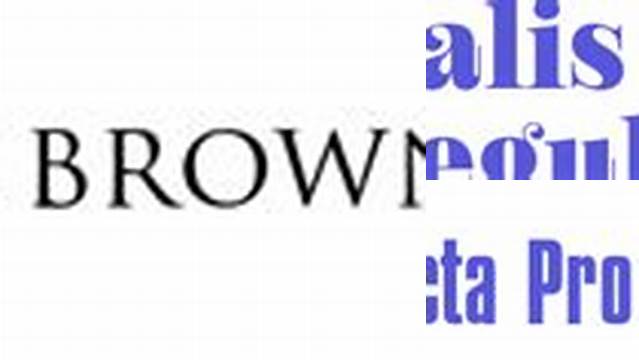
Hey guys! Ever stumbled upon a font so classic and elegant, it just screams Roman Empire? That's Trajan Pro Regular for ya! If you're on the hunt for this stunning typeface, you've landed in the right spot. We're diving deep into everything Trajan Pro Regular, from its history and uses to where you can snag it for your next project. Let’s get started!
1. What is Trajan Pro Regular?
Trajan Pro Regular is more than just a font; it's a piece of typographic history. Inspired by the letterforms on the Trajan Column in Rome, this font exudes a timeless elegance. Designed by Carol Twombly in 1989 for Adobe, it’s a classic serif typeface known for its clean lines and balanced proportions. Think of it as the go-to font when you want to convey sophistication and authority. Whether you're crafting a movie poster, designing a book cover, or working on a branding project, Trajan Pro Regular adds a touch of class that few other fonts can match. It's the font that whispers, "This is important," without ever raising its voice. The beauty of Trajan Pro Regular lies in its simplicity and its ability to make a statement without being overly flashy. It's a font that understands the power of subtlety and the impact of a well-crafted letterform.
2. History and Origins of Trajan Pro
The story of Trajan Pro is rooted in ancient history. The font’s design is directly inspired by the inscriptions on the base of Trajan's Column in Rome, which was erected in 113 AD. These inscriptions are widely regarded as some of the finest examples of Roman square capitals, and they have influenced type designers for centuries. Carol Twombly, the brilliant mind behind Trajan Pro, meticulously studied these ancient letterforms to create a typeface that captures their timeless beauty and elegance. In 1989, she released Trajan Pro under the Adobe Originals program, and it quickly became a favorite among designers. The font's classical roots give it a sense of authority and sophistication, making it a popular choice for projects that require a touch of history and grandeur. From movie posters to corporate branding, Trajan Pro has left its mark on the world of design, proving that some things, like well-designed letterforms, truly are timeless. Its enduring appeal is a testament to the power of classic design and the lasting influence of ancient Roman artistry.
3. Key Characteristics of Trajan Pro Regular Font
So, what makes Trajan Pro Regular so special? First off, its elegant serif design gives it a classic and authoritative feel. The letterforms are clean, crisp, and perfectly proportioned, making it incredibly readable and visually appealing. One of the standout features of Trajan Pro Regular is its all-caps design. That’s right, it’s exclusively an uppercase font, which adds to its sense of grandeur and formality. This characteristic makes it particularly well-suited for headlines, titles, and short blocks of text where you want to make a strong statement. The uniform stroke weight and the subtle serifs contribute to its polished and refined appearance. It’s a font that commands attention without being overly assertive, making it a versatile choice for a wide range of design applications. Whether you’re aiming for a timeless, sophisticated look or need a typeface that exudes confidence and authority, Trajan Pro Regular delivers every time.
4. Common Uses of Trajan Pro Regular
You'll often spot Trajan Pro Regular in places where a touch of elegance and authority is needed. Think movie posters, particularly for historical dramas and epic films. Its classical appearance instantly conveys a sense of grandeur and timelessness, making it a perfect fit for Hollywood blockbusters. But it's not just for the silver screen; Trajan Pro Regular is also a popular choice for book covers, especially in genres like history, literature, and non-fiction. Its sophisticated look can elevate the visual appeal of a book and attract readers. Beyond entertainment and publishing, this font is frequently used in corporate branding and logo design. High-end brands often choose Trajan Pro Regular to communicate a sense of prestige and reliability. You might also find it in wedding invitations, certificates, and other formal documents where a touch of class is essential. Its versatility and timeless appeal make it a go-to font for designers looking to make a lasting impression.
6. Trajan Pro Regular Alternatives: Fonts with a Similar Feel
If you're looking for that Trajan Pro Regular vibe without the price tag, you're in luck! There are several fantastic alternatives out there that capture the same elegant and authoritative feel. One popular option is Garamond. It’s a classic serif font with a similar timeless quality, making it a great choice for projects that need a touch of sophistication. Another excellent alternative is Times New Roman. While it might seem like a basic choice, its clean and readable letterforms share some of the same characteristics as Trajan Pro Regular, particularly its suitability for formal and professional applications. Playfair Display is another worthy contender. This font has a more modern twist but still retains a sense of elegance and grandeur. It’s a great option if you want something that stands out a bit more while still maintaining a classic look. And don’t forget about Lato. While it’s a sans-serif font, its clean lines and balanced proportions make it a versatile alternative for projects where readability is key. Exploring these alternatives can help you achieve the desired aesthetic without breaking the bank.
8. Using Trajan Pro Regular in Graphic Design Projects
When it comes to graphic design, Trajan Pro Regular is a true workhorse. Its elegant and authoritative appearance makes it a go-to choice for a wide range of projects. Think about how you can leverage its strengths. For logos and branding, Trajan Pro Regular can convey a sense of prestige and reliability. Its clean lines and classic serifs create a timeless look that's perfect for high-end brands and professional services. In editorial design, this font shines in headlines and titles, adding a touch of sophistication to magazines, books, and other publications. It’s also a fantastic option for posters and promotional materials, especially when you want to make a strong visual statement. The all-caps design of Trajan Pro Regular commands attention, making it ideal for grabbing the viewer's eye. Just remember to use it judiciously. Because it's an uppercase-only font, it's best suited for shorter blocks of text. Pairing it with a complementary body font can create a balanced and visually appealing design. With its versatility and timeless appeal, Trajan Pro Regular is a valuable asset in any designer's toolkit.
9. Trajan Pro Regular for Logos and Branding
If you're aiming for a logo or brand identity that exudes sophistication and authority, Trajan Pro Regular is a stellar choice. This font has a knack for making brands look established and trustworthy. Its classical roots give it a timeless quality, which is perfect for businesses that want to convey a sense of history and reliability. Think about it: Trajan Pro Regular instantly elevates a brand’s image, making it feel more premium and professional. Its clean lines and elegant serifs create a visual identity that's both memorable and impactful. Whether you're designing a logo for a law firm, a financial institution, or a luxury brand, Trajan Pro Regular can help you communicate the right message. Just remember that consistency is key when it comes to branding. Using Trajan Pro Regular across all your brand materials—from your website to your business cards—will help create a cohesive and recognizable brand identity. With its enduring appeal and undeniable elegance, Trajan Pro Regular is a fantastic tool for building a strong and memorable brand.
30. Future Trends for Trajan Pro Regular and Similar Fonts
Looking ahead, what are the future trends for Trajan Pro Regular and similar fonts? While it's impossible to predict the future with certainty, we can make some educated guesses based on current trends in design and typography. One trend is the continued appreciation for classic and timeless typefaces. In a world of rapidly changing design styles, fonts like Trajan Pro Regular offer a sense of stability and reliability. This suggests that Trajan Pro Regular will likely remain a popular choice for projects that require a touch of elegance and authority. Another trend is the increasing focus on readability in digital media. As more and more designs are viewed on screens, the need for fonts that are clear and legible online will continue to grow. This might mean that designers will use Trajan Pro Regular more sparingly in body text, opting for more web-friendly fonts instead. However, its impact in headlines and titles is likely to remain strong. Finally, we can expect to see more variations and interpretations of classic typefaces like Trajan Pro Regular. Designers are always looking for fresh ways to express familiar styles, so we might see new fonts that capture the essence of Trajan Pro Regular while adding a contemporary twist. The future of typography is always evolving, but the enduring appeal of classic designs like Trajan Pro Regular is sure to continue to shape it.